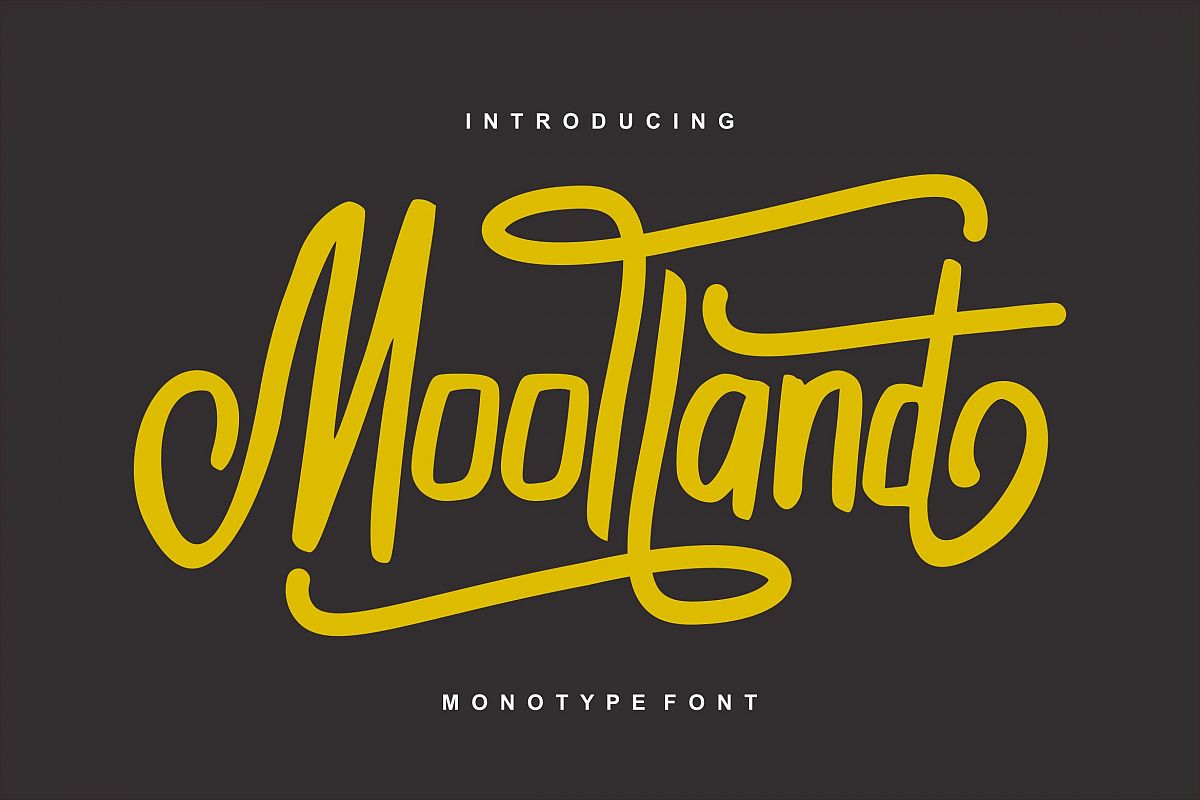
Moolland | Monotype Script Font
Moolland
**Moolland | Monotype Script Font** with a calligraphy style, So beautiful on invitation like greeting cards, branding materials, business cards, quotes, posters, and more!